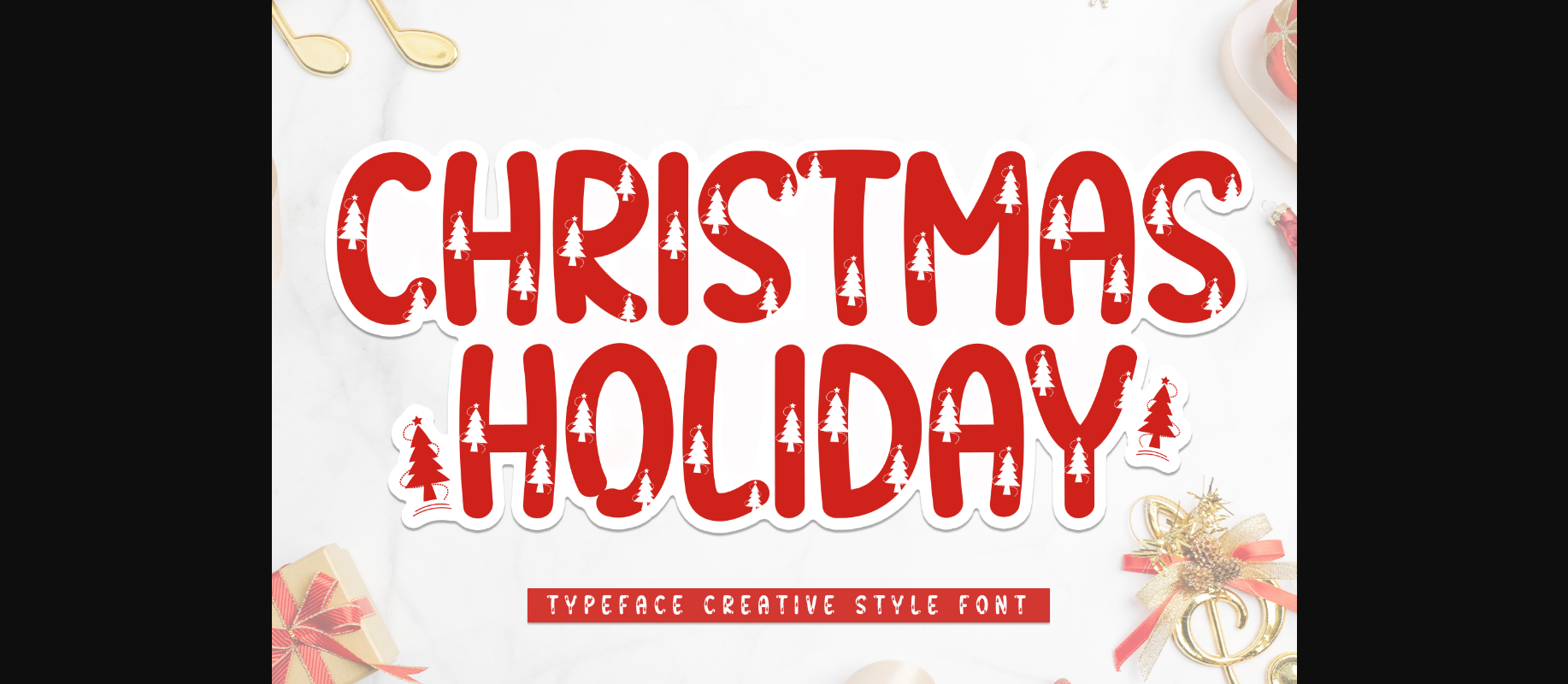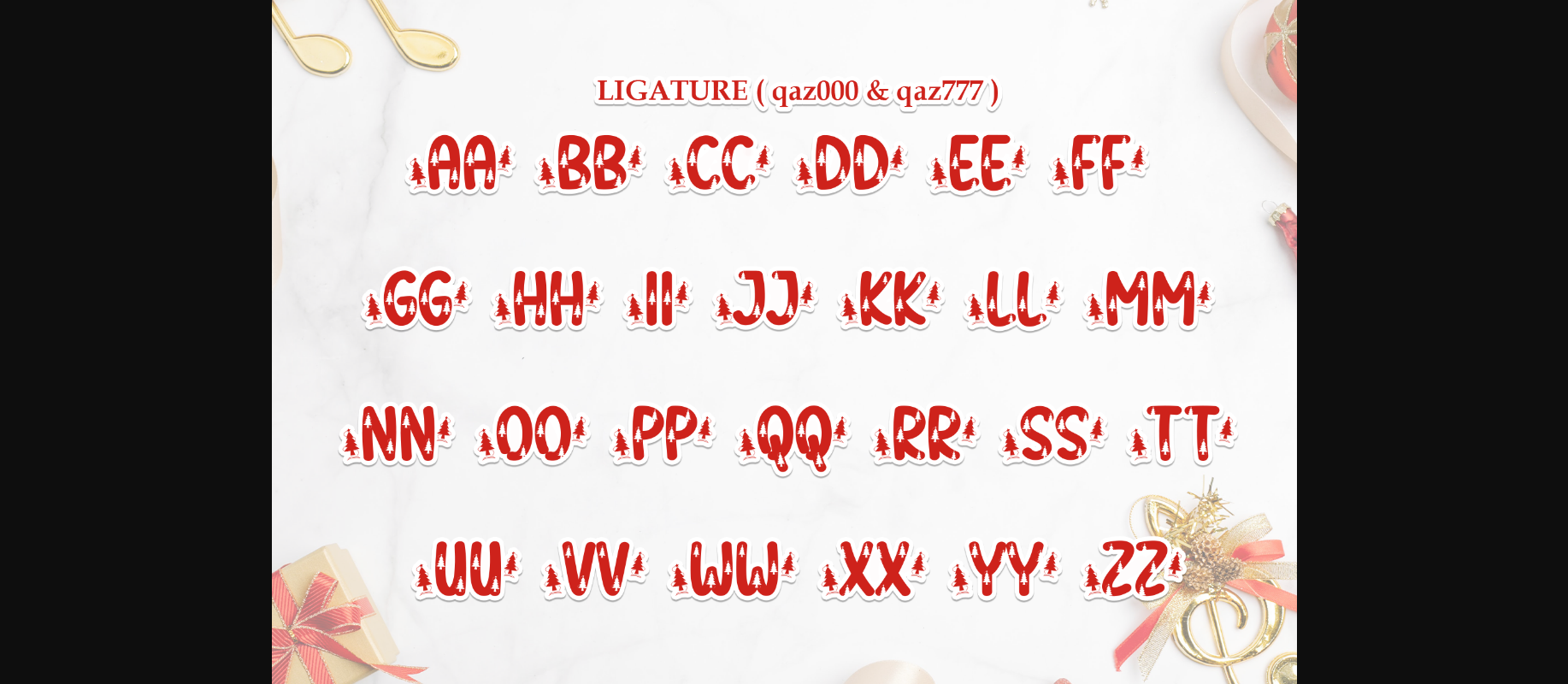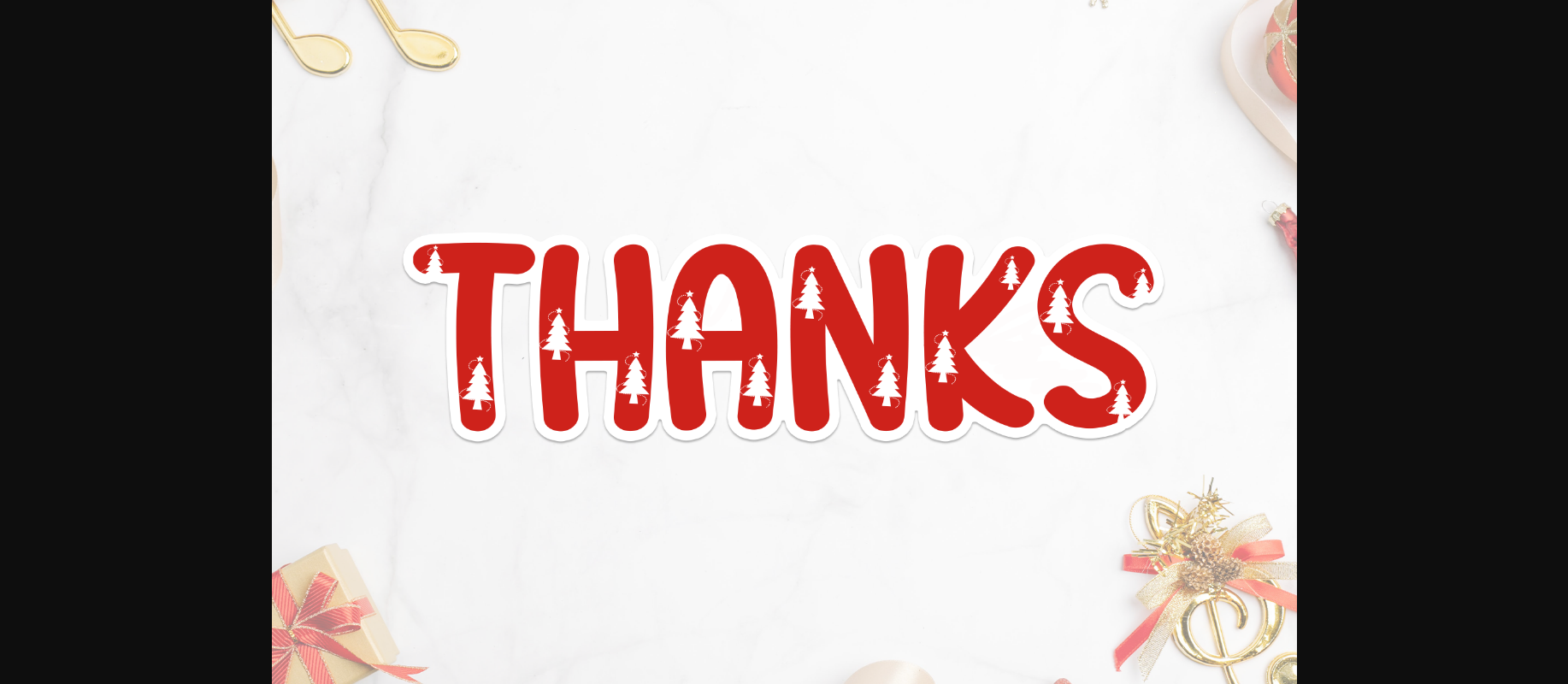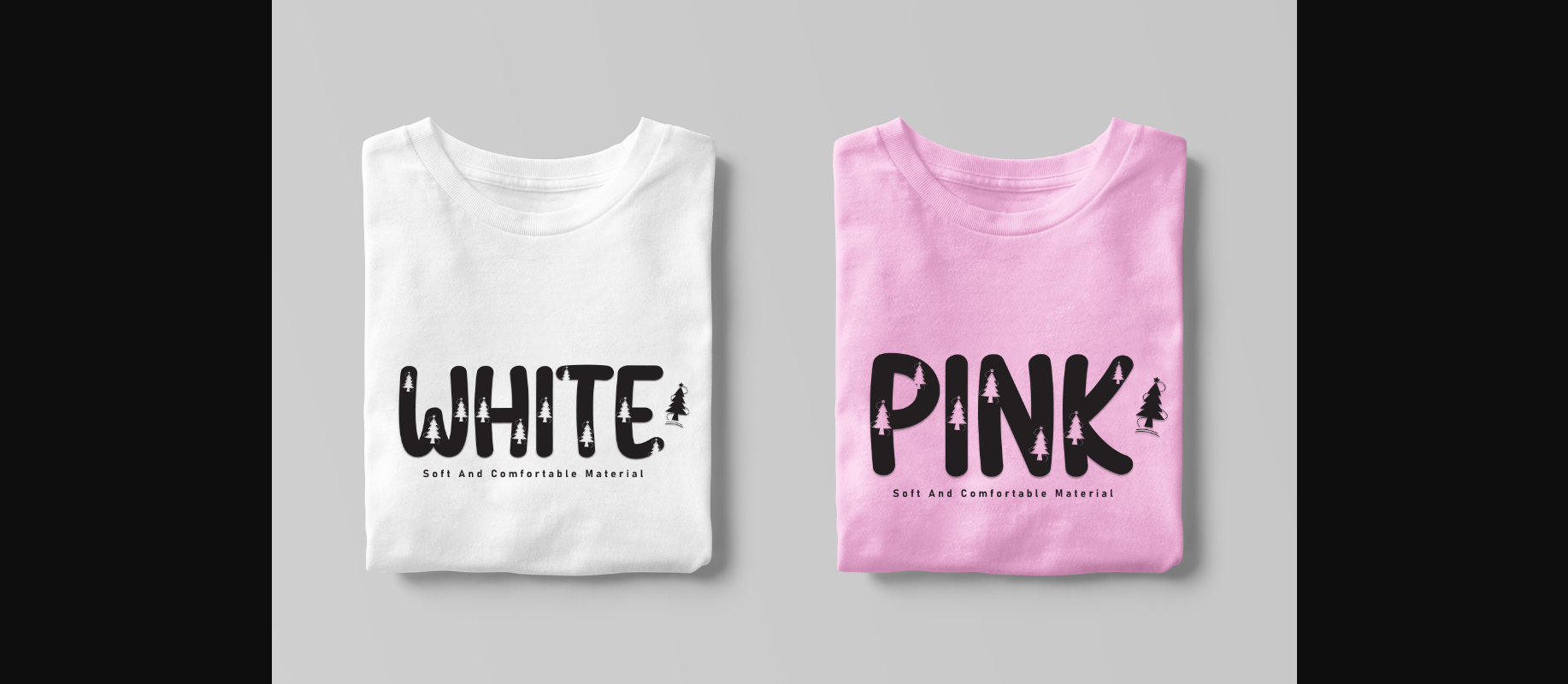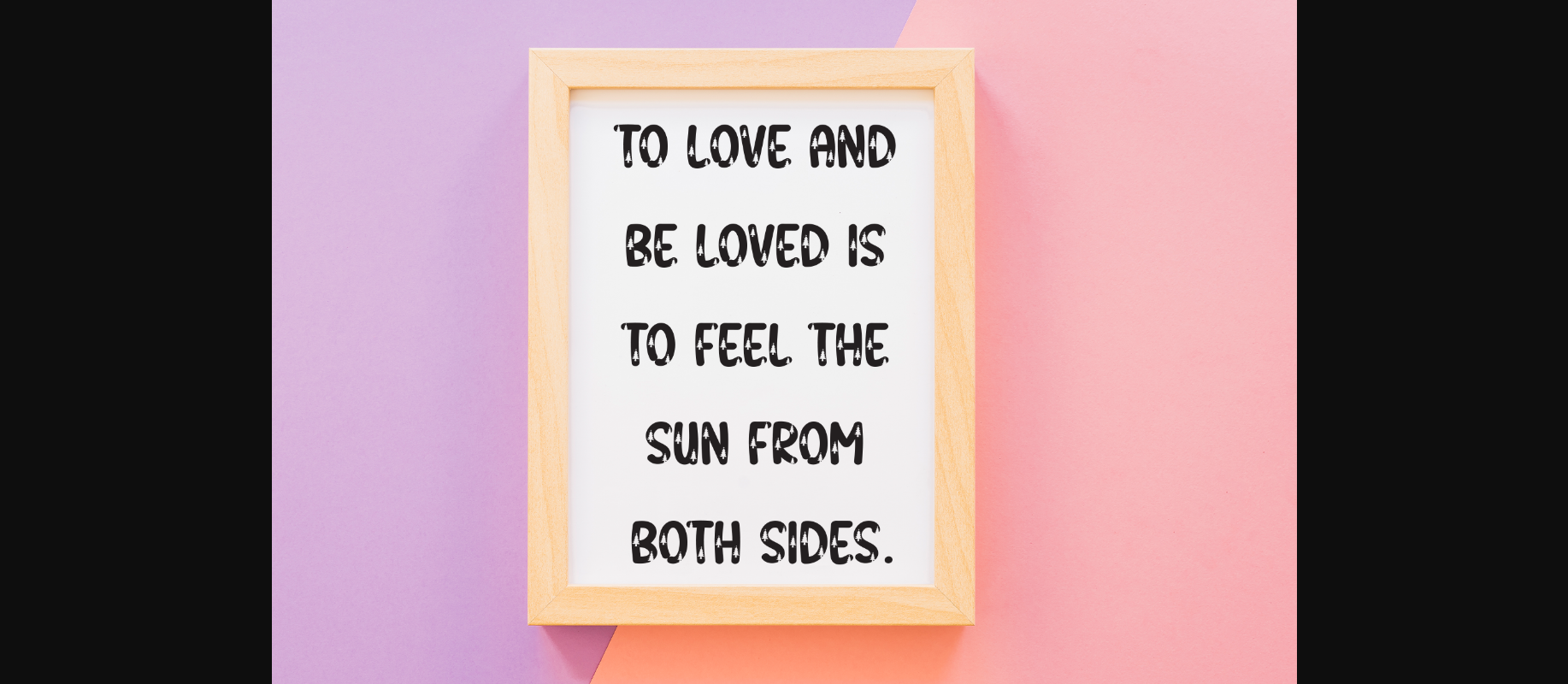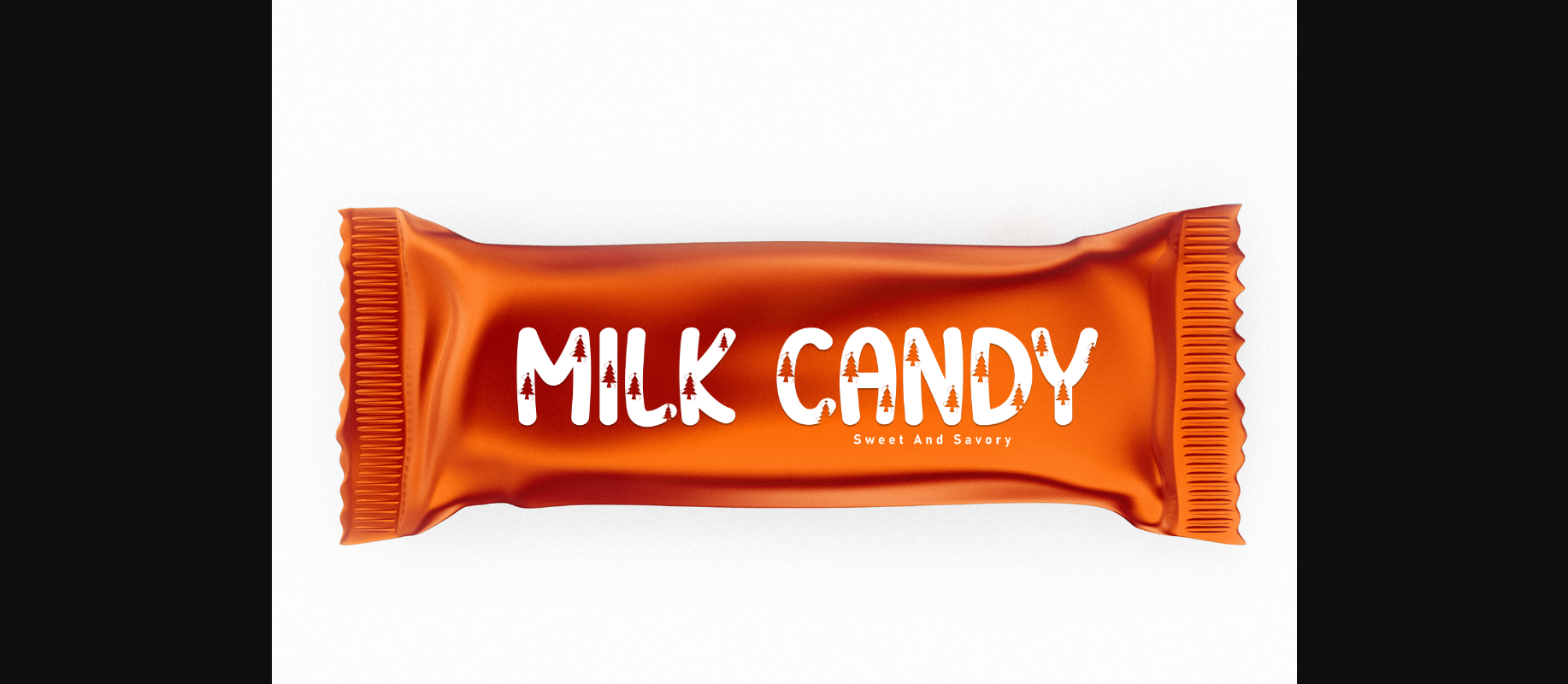
Christmas Holiday Font
About Christmas Holiday Font
Christmas Holiday is a sweet and friendly decorative font. Cute and versatile, this font is ideal for writing wedding invitations, cards, or any other design that might need a fun touch!